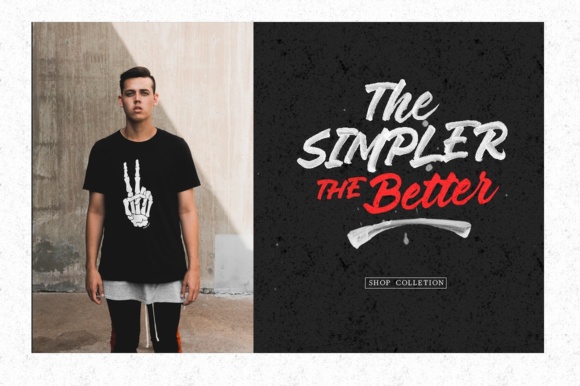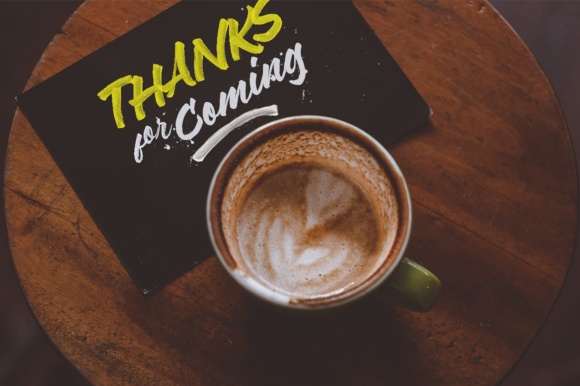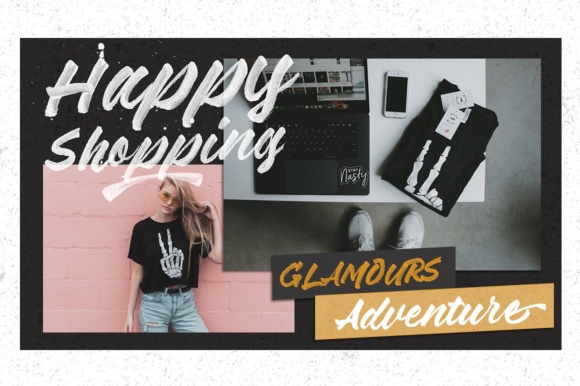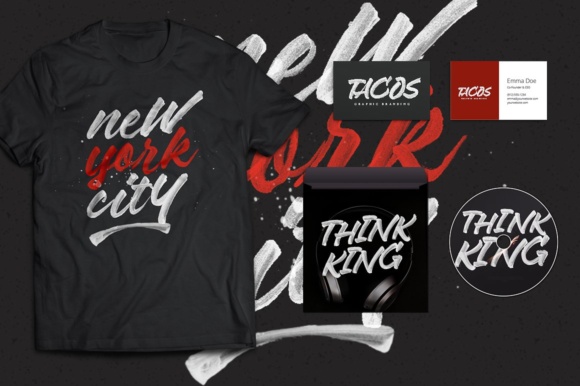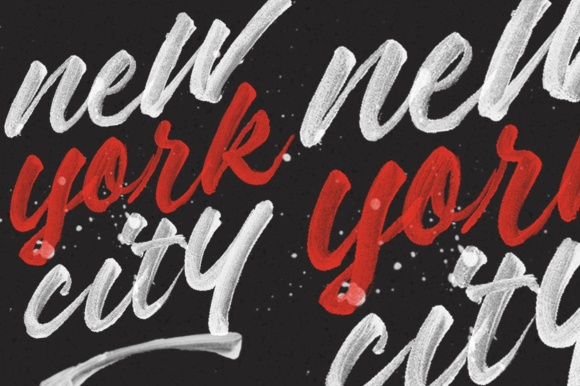
Introduction to Mixing Font
Have you ever found yourself stuck in a creative rut, struggling to convey the perfect message in your designs? That’s where the Mixing Font comes in – a striking, high-quality SVG font that’s sure to elevate your design game. With its unique blend of styles, this font is perfect for designers who want to add a touch of sophistication to their creative projects.
Whether you’re working on a logo, brochure, or social media graphics, the Mixing Font is an invaluable design resource that’s guaranteed to grab attention. Its versatility and high-quality design make it an ideal choice for designers who want to add a professional touch to their work. Plus, with its transparent background, you can easily integrate it into any design project.
In this article, we’ll delve into the world of the Mixing Font and explore its features, benefits, and uses. We’ll also provide you with valuable insights on how to get the most out of this fantastic font, including a free download to get you started. So, let’s dive in and discover why the Mixing Font is a must-have for any designer looking to take their work to the next level.
Mixing Font
- Features a transparent background, allowing for seamless integration with any design resource.
- Unique characteristic: Mixing Font has a modular design, allowing users to easily customize and mix-and-match individual elements.
- Perfect for designers looking for a versatile and high-quality design resource for their next creative project.
Honest Review: Mixing Font
I recently stumbled upon the Mixing Font, a free download that caught my attention as a design resource. The font is available in a transparent background, making it perfect for creative projects that require a touch of elegance.
- High-quality design: The font is well-crafted, with smooth lines and a sophisticated look.
- Transparent background: This feature allows for seamless integration into creative projects, giving designers more flexibility.
- Limited character set: The font doesn’t come with a comprehensive character set, which may be a concern for designers working on complex projects.
- No bold or italic variants: While the font looks great in its standard form, the lack of bold or italic variants may limit its versatility.
Overall, I’m impressed with the Mixing Font, despite its limitations. Its high-quality design and free download make it a valuable addition to any design toolkit. While it may not be perfect, it’s definitely worth considering for your next creative project.
Mixing Font
The Mixing Font is perfect for any creative project that requires a unique and eye-catching design. It’s great for social media graphics, blog posts, and even presentations. You can also use it to create a transparent background, adding a touch of elegance to your design.
To get the most out of the Mixing Font, be sure to use it in conjunction with other high-quality design resources. You can also experiment with different font sizes and colors to create a truly unique look. Additionally, consider using the Mixing Font on a transparent background to add depth and visual interest to your design.